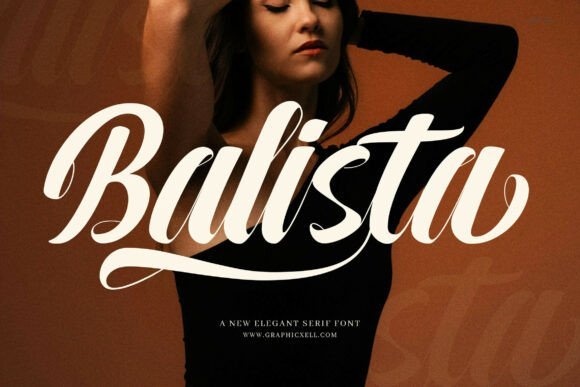
Discover the Art of Elegant Typography with Balista Font
Imagine you’re working on a high-end wedding invitation, and you want to create a design that exudes luxury and sophistication. You start by choosing the perfect font, one that will make your clients’ eyes sparkle. That’s where the Balista Script Font comes in – an elegant and sophisticated typeface designed to bring beauty and charm to any creative project.
With its smooth, flowing strokes and wide variety of alternate characters, the Balista Font is perfect for designers who want to craft stylish and personalized designs effortlessly. Whether you’re working on branding, logo design, or social media graphics, this font delivers a timeless aesthetic that’s both professional and romantic. Its balance of style and readability makes it a valuable asset for any designer looking to elevate their creative projects.
Balistra Font Key Features
- Unique Characteristics: Balistra Font features a unique blend of modern and traditional elements, with intricate details and ornaments that add a touch of elegance to any design.
- Font Style: The font is available in a range of styles, including Regular, Bold, Italic, and Bold Italic, providing users with flexibility and versatility in their design choices.
- Language Support: Balistra Font supports a wide range of languages, including Latin, Cyrillic, and Greek, making it an ideal choice for multilingual designs and projects.
- Scalability: The font is designed to be highly scalable, ensuring that it remains legible and visually appealing even at small sizes or when enlarged.
Review of Balista Font
Overall, I think the Balista font is a solid addition to any designer’s toolkit. ✨ The font’s modern and sleek design makes it perfect for a wide range of applications, from digital interfaces to print materials.
- ✨ Unique and interesting letterforms that add a touch of personality to any design
- ✨ Great for use in headings and titles, where the font’s bold and modern look really shines
- ✨ Comes in a variety of weights and styles, making it easy to find the perfect fit for your design
That being said, there are a few limitations to consider:
- ⚠️ May not be the best choice for body text, as it can be a bit too bold and overwhelming
- ⚠️ Some users may find the font’s modern look to be a bit too trendy, and may not be suitable for more conservative designs
Overall, I think the Balista font is a great addition to any designer’s toolkit. While it may have some limitations, its unique design and versatility make it a great choice for a wide range of applications.
Some common use cases for the Balista Font include:
- Headings and titles for designs and presentations
- Body text for reports and documents
- Labels and tags for products and packaging
Alternatives to Balista Font
Monserrat is a modern sans-serif font designed by Julieta Ulanovsky. It’s ideal for use in headings and titles due to its clean and geometric lines. When to use: Use Montserrat for digital products, apps, and websites that require a modern and sleek look.
Montserrat is similar to Balista Font in its geometric and modern design, but it has a more aggressive and edgy feel. While Balista Font has a more rounded and friendly look, Montserrat is better suited for bold and eye-catching designs.
2. Inter
Inter is a highly legible sans-serif font designed by Rasmus Andersson. It’s suitable for use in body text and paragraphs due to its clear and readable lines. When to use: Use Inter for publications, magazines, and books that require a clean and easy-to-read font.